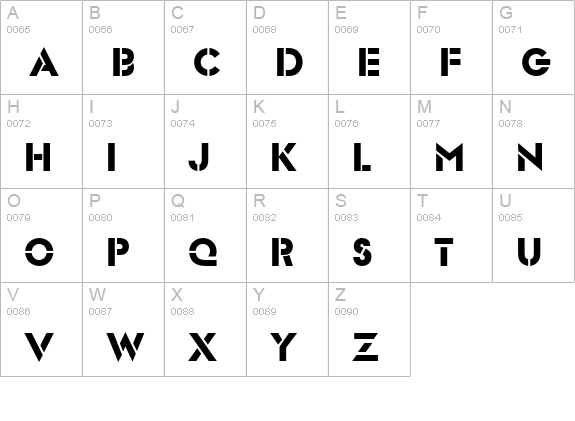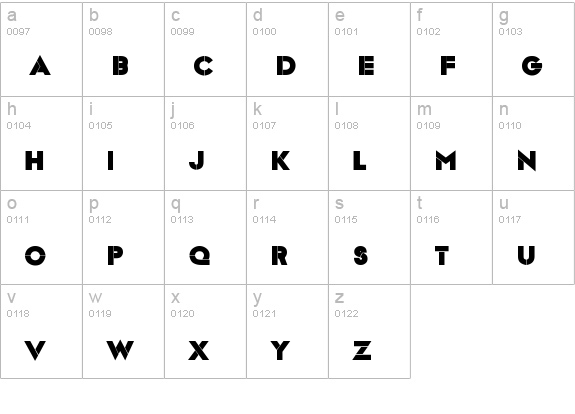
Templett Bold is a strong, high-contrast variant in the Templett typeface family \xE2\x80\x94 well suited to headlines, attention-grabbing titles, and strong calls-to-action.
Templett Bold is a stunning and powerful font that exudes confidence and elegance. With its bold and strong letterforms, this typeface is perfect for capturing attention and making a statement. The smooth curves and sharp edges of Templett Bold create a harmonious balance that adds a touch of sophistication to any design. One of the best things about Templett Bold is that it is freely available to download at FontsMarket.com. This means that you can easily access this exceptional font without any cost. Whether you are a professional designer looking for a versatile and impactful typeface, or an individual seeking to add a touch of style to your personal projects, Templett Bold is the perfect choice. The versatility of Templett Bold allows it to be used in a wide range of design projects such as logos, headlines, posters, banners, and much more. Its bold and commanding presence ensures that your message will be conveyed in a visually striking and memorable way. The attention to detail in Templett Bold is evident in its carefully crafted letterforms, which are both modern and timeless. This font stands out amongst the crowd and is sure to make a lasting impression on your audience. So why wait? Download Templett Bold for free at FontsMarket.com and elevate your designs to a whole new level. Experience the power and beauty of this exceptional font and let it inspire your creativity. With Templett Bold, your designs will never be the same again.